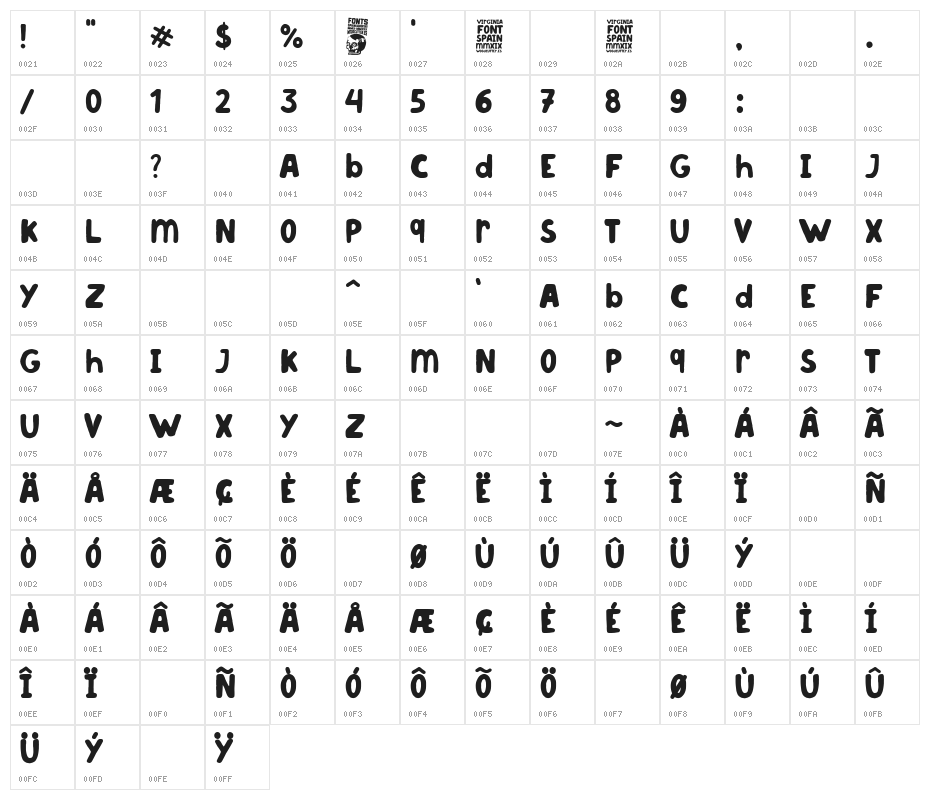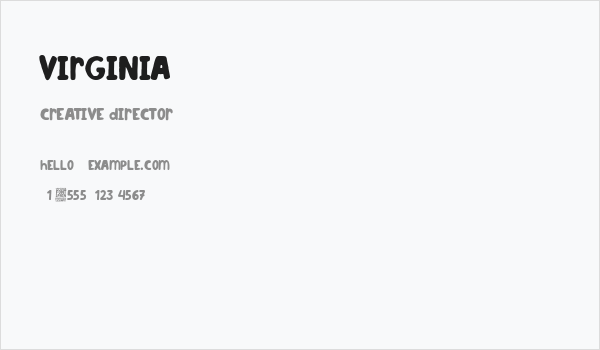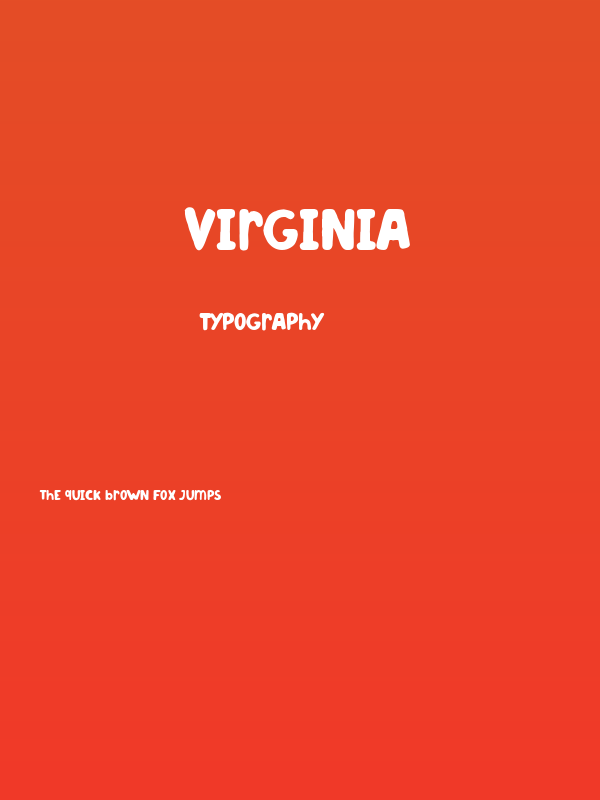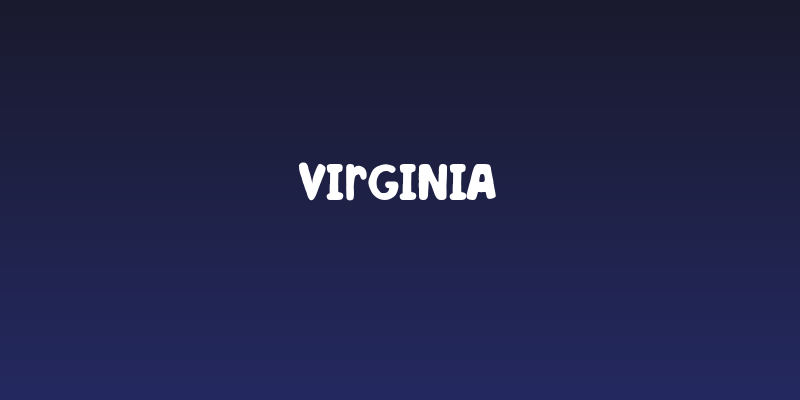
Virginia Font
Virginia Description
This playful and bold font features rounded, thick strokes that give it a friendly and approachable appearance. The characters are slightly irregular, adding a whimsical touch that makes it stand out. The uppercase and lowercase letters maintain a consistent style, with a uniform thickness that ensures readability. The numbers and special characters follow the same design principles, making them cohesive with the alphabet. This font's unique style is perfect for projects that require a fun and informal tone.
| Proposed Projects | Ideal for children's books, playful branding, casual invitations, and creative posters. |